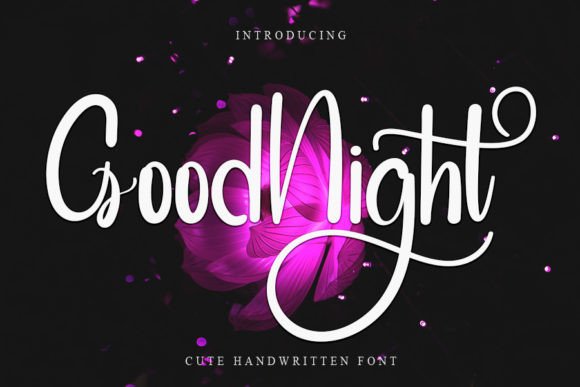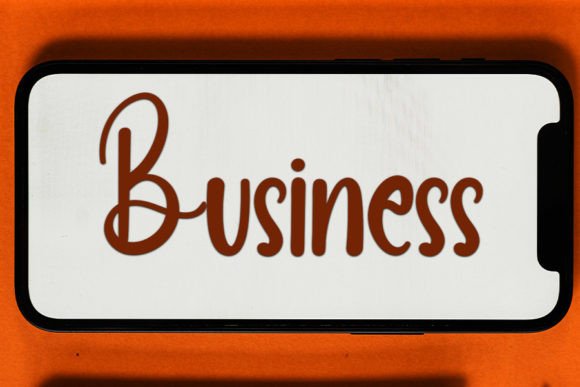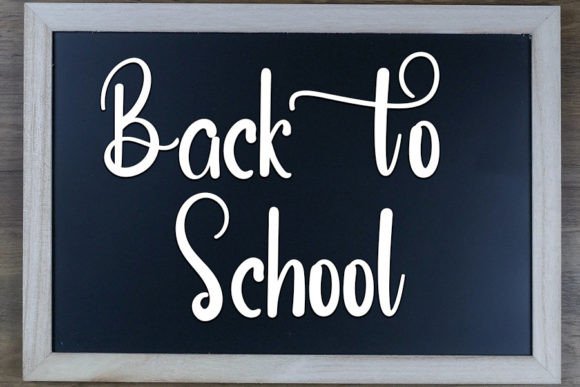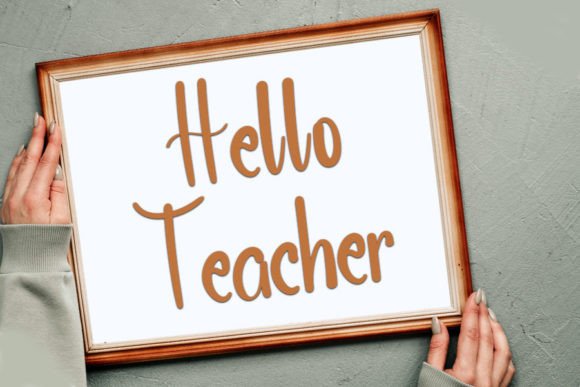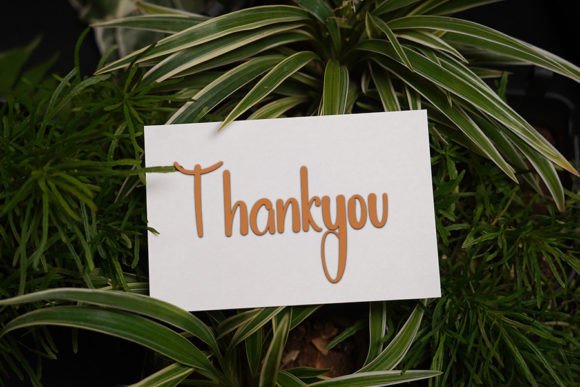
Good Night Font
About Good Night Font
“Good Night” stands as a remarkable handwritten font, meticulously crafted to infuse elegance into your favorite projects. This font is more than just a typographic choice; it’s a refined piece of design that brings a distinct and timeless style to your creative endeavors. With its neat and beautiful handwritten aesthetic, “Good Night” captivates viewers and sets the stage for spectacular designs.
At the heart of “Good Night” is an elegant touch that speaks to a sense of sophistication. Its unique charm lies in the balance between simplicity and beauty, making it suitable for a myriad of applications. Whether you’re working on invitations, branding materials, or any creative piece, this font adds a layer of refinement that transforms your projects into works of art.
The versatility of “Good Night” shines through in its ability to adapt to various design themes and purposes. Its timeless style ensures that it remains relevant and impactful across different trends, allowing you to create designs that withstand the test of time. Every stroke and curve of this font has been carefully considered, resulting in a typeface that not only looks visually appealing but also communicates a sense of thoughtfulness and craftsmanship.
As you immerse yourself in the world of “Good Night,” you’ll discover its capacity to elevate your designs. It serves as more than just a font; it becomes a visual language that communicates elegance and creativity. The handwritten nature of the font adds a personal and human touch to your projects, creating a connection with the audience.
“Good Night” is not merely a tool for typography; it’s an invitation to fall in love with design all over again. Its distinctiveness makes it a standout choice for those who appreciate the artistry behind fonts. Whether you’re a designer seeking a signature style or someone embarking on a creative project, “Good Night” provides the perfect canvas for your imagination.
In conclusion, embrace the beauty and sophistication encapsulated in every letter of “Good Night.” Let this font be your companion in the journey of creating spectacular designs that leave a lasting impact on your audience.